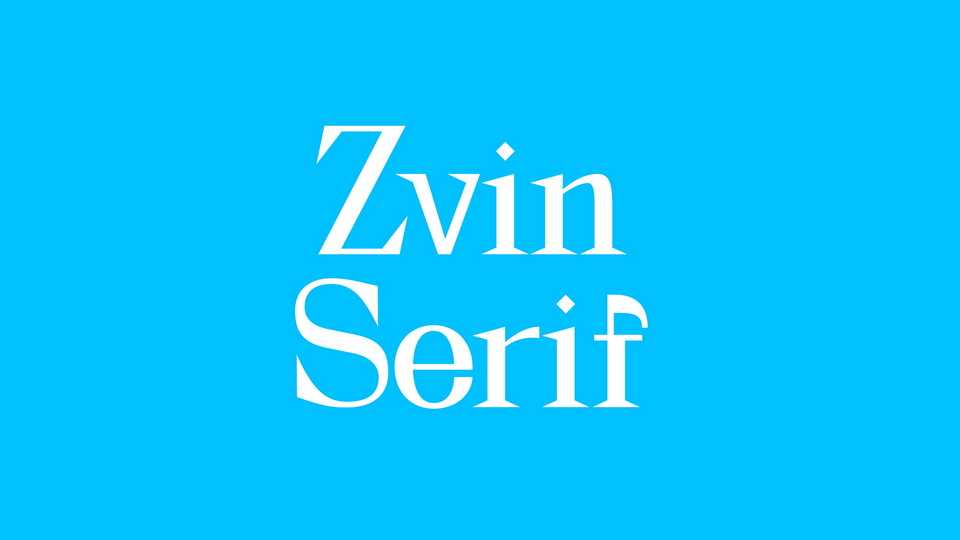
Download Zvin font, a variable serif typeface inspired by the typography of 1850-1960 years. The mood of Zvin font and general dynamics are based on the Greek script mixed with modern decorative shapes.
Designer: Ivan Tsanko